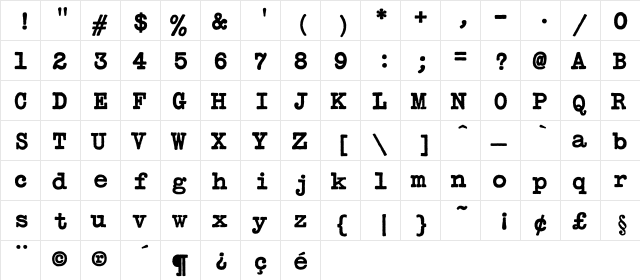
AllureBoldAltSpace Regular
Design Context for AllureBoldAltSpace Typeface
AllureBoldAltSpace offers clean, dependable letterforms without strong stylistic allegiance, making it a practical choice for designers who need flexibility. The heavy weight commands attention and anchors typographic hierarchies.